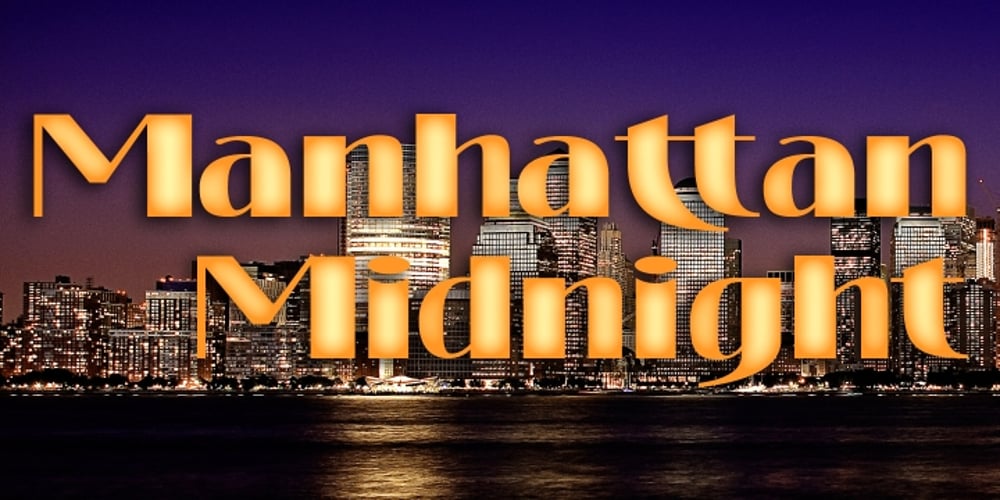
Manhattan Midnight Font Family was designed by Anton Scholtz and published by Scholtz Fonts. Manhattan Midnight contains 1 styles and family package options. Manhattan Midnight owes its style to Art Deco fonts of the early 20th century. It has the opulence of New York City in the 20s and 30s, the glitter of city lights, the glamour of movie stars, the razzmatazz of Manhattan in the bad old days. You can use Manhattan Midnight for all advertising with an art deco flavor, for music media needing a bluesy, retro look, for movie posters reminiscent of the era, and so many more applications. The font has all the features usually included in a fully professional font. Language support includes all European character sets.